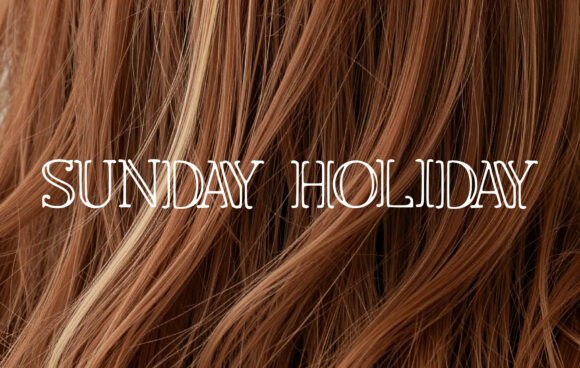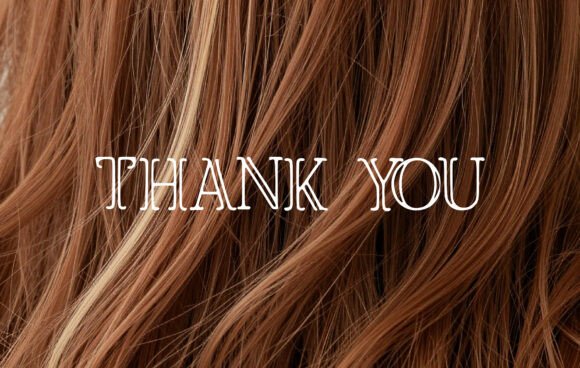
Light Up Your Designs with the Bright Font
Have you ever been brainstorming a new project, and suddenly, an idea sparks in your mind like a neon sign on a rainy night? That’s exactly what happened when designers discovered the Bright Font. This stunning double-line display typeface combines the retro charm of neon lights with modern sophistication, creating a visually striking effect that’s perfect for grabbing attention.
Whether you’re working on a high-fashion branding campaign, a night-club promotion, or a futuristic tech design, the Bright Font is a fantastic choice to add a touch of glamour and sophistication to your work. Its unique inline structure creates a sense of depth and luminosity, making it shine on dark backgrounds or vibrant gradients. With its ability to make a statement with minimal ornamentation, the Bright Font is a valuable asset for designers looking to elevate their designs to the next level.
Bright Font Key Features
- Unique Characteristics: Bright Font features a unique blend of modern and vintage elements, creating a distinctive and eye-catching visual style that is perfect for use in headlines, titles, and other attention-grabbing applications.
- Character Set: Bright Font includes a comprehensive character set that includes a wide range of languages, including Latin, Cyrillic, and Greek alphabets, as well as various punctuation and symbol characters.
- Font Weight: Bright Font is available in 3 different font weights: Light, Regular, and Bold, allowing designers to choose the perfect weight to suit their design needs.
Bright Font Review
I recently had the chance to work with the Bright Font, and I’m excited to share my thoughts on this beautiful typeface. Overall, I was impressed with its performance and features.
- Legibility**: Bright Font is extremely legible, even at small font sizes. The clear and clean design makes it perfect for reading and displaying text.
- Customization**: The font offers a range of customization options, including font weights, sizes, and styles, which makes it versatile for various design applications.
- Compatibility**: I was pleased to find that Bright Font works seamlessly across different devices and browsers, ensuring a consistent user experience.
- Lack of Italic**: While the font offers various font weights and sizes, it’s missing an italic variant, which can be a limitation in certain design situations.
- Limited Kerning**: I noticed that the kerning between certain characters could be improved, which may affect the overall readability and aesthetic of the text.
Despite some limitations, I’m overall pleased with the Bright Font. Its legibility, customization options, and compatibility make it a solid choice for designers. While it may not be perfect, it’s definitely worth considering for your next design project.
Bright Font is commonly used for headings, titles, and other important text elements. It’s also used to create visual hierarchy and draw attention to key information. In marketing materials, Bright Font is often used to create bold and eye-catching headlines and titles.